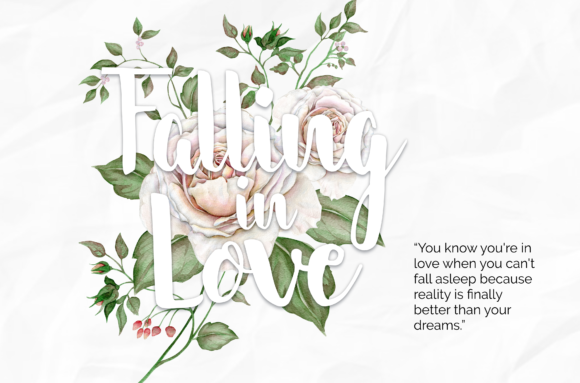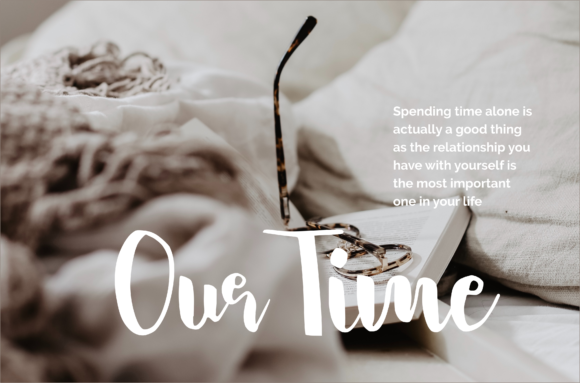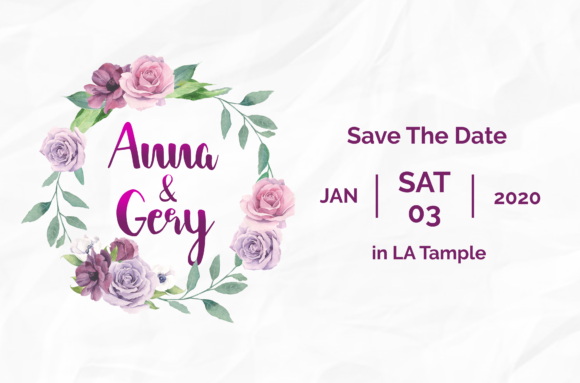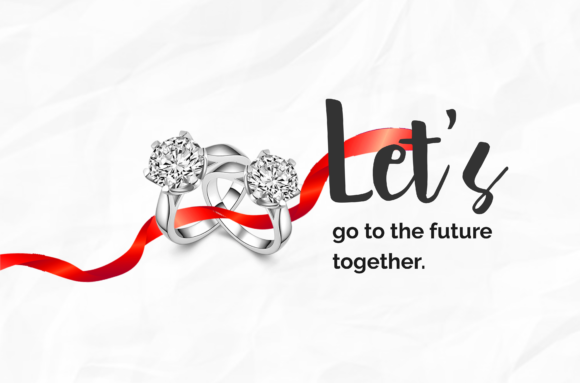
Cantika Font
About Cantika Font
Cantika is a beautiful font, perfectly suitable for romantic designs such as invitations or souvenirs. It’s the ideal font for making any design idea stand out.